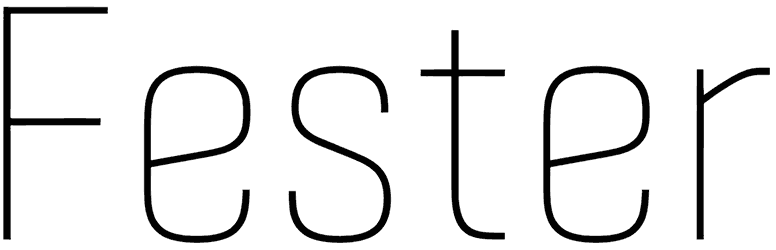
Fester Font
Fester font is a sans serif font. It can overcome any kind of limitations and be utilized for any purpose. However, it is going to work as a motivation for sports products like sneakers and walking shoes.
The strict font with elegant lines makes a powerful feel for both long printed and screen texts, like books or design websites, and the digital era. Tech companies and car branding can count on this font.